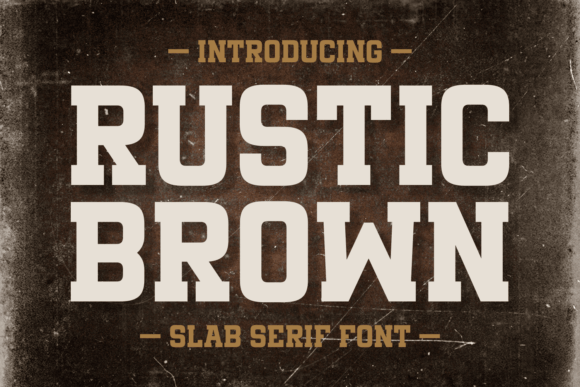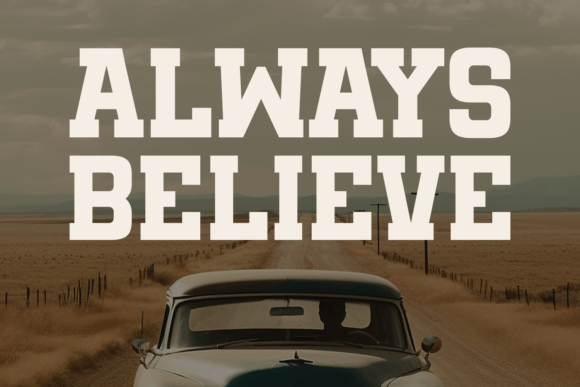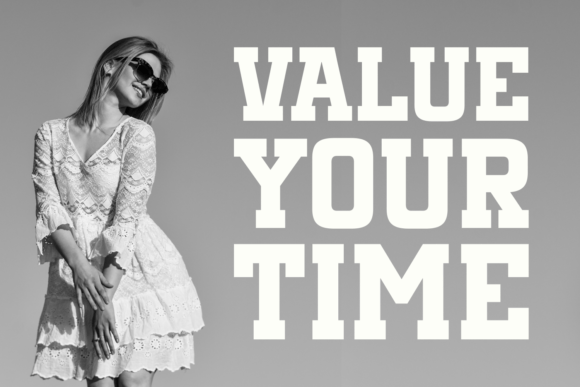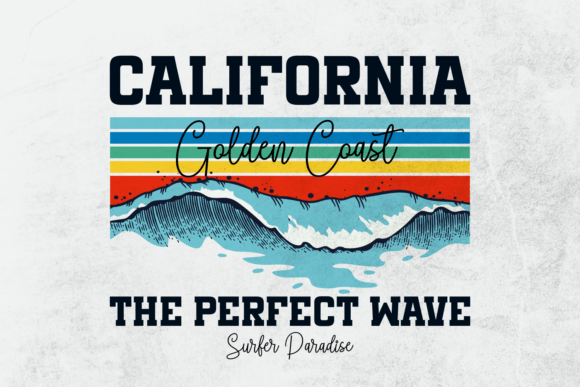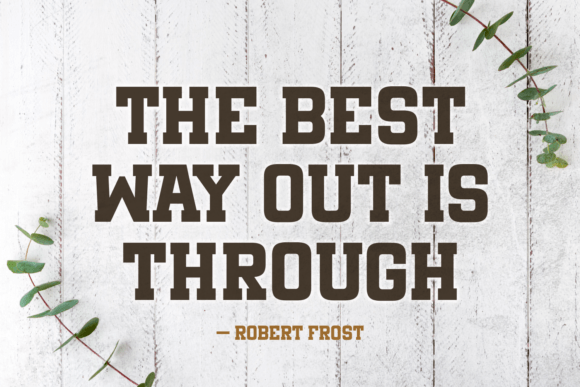
Rustic Brown Font
About Rustic Brown Font
Rustic Brown is a strong and straightforward slab serif font that brings a touch of warmth and authenticity to your text. With bold, robust lettering, it adds a rustic charm to any project, making it ideal for conveying a sense of rugged simplicity. Perfect for headlines, signage, or projects that require a no-nonsense yet inviting typeface, Rustic Brown ensures your message is delivered with a touch of down-to-earth style.